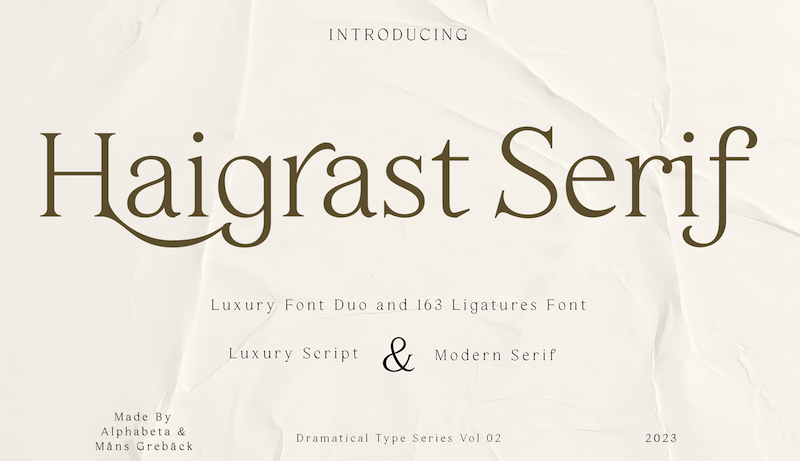
Font name: | Haigrast Serif |
NOTE: This font is for PERSONAL USE ONLY! To purchase a commercial license, visit: http://mn.sg/haigrast-serif Haigrast Serif is a font that combines classic and modern design elements to create a look that is both traditionally tasteful and fashion-forward. The sharp, crisp lines and swash alternates in addition to the sophisticated appearance are what make Haigrast Serif such a versatile font, that makes your work stand out. For questions, please visit www.mansgreback.com/faq |